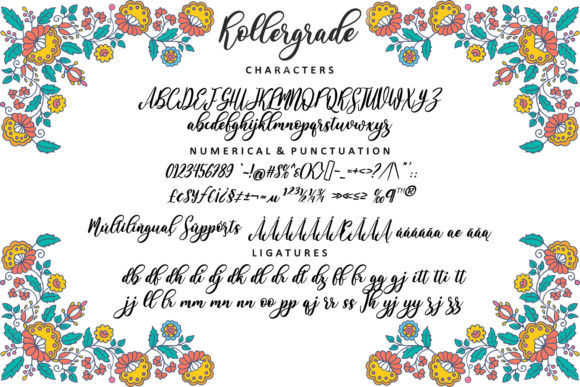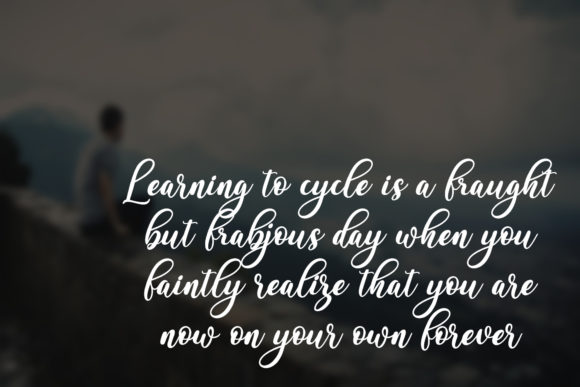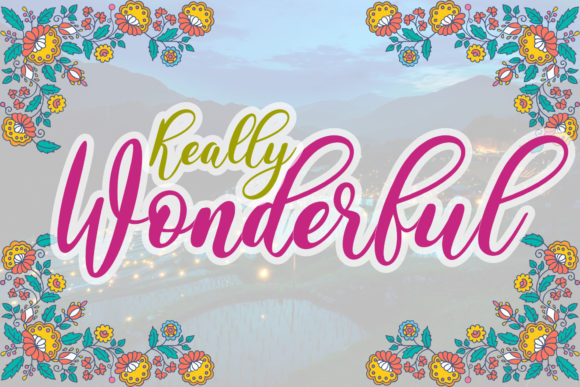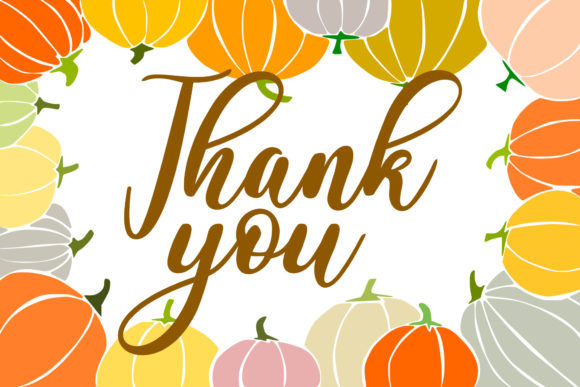
About Rollergrade Font
Rollergrade is a delicate, elegant and flowing handwritten font. It has beautiful and well balanced characters and as a result, it matches a wide pool of designs. Add it to your most creative ideas and notice how it makes them come alive!